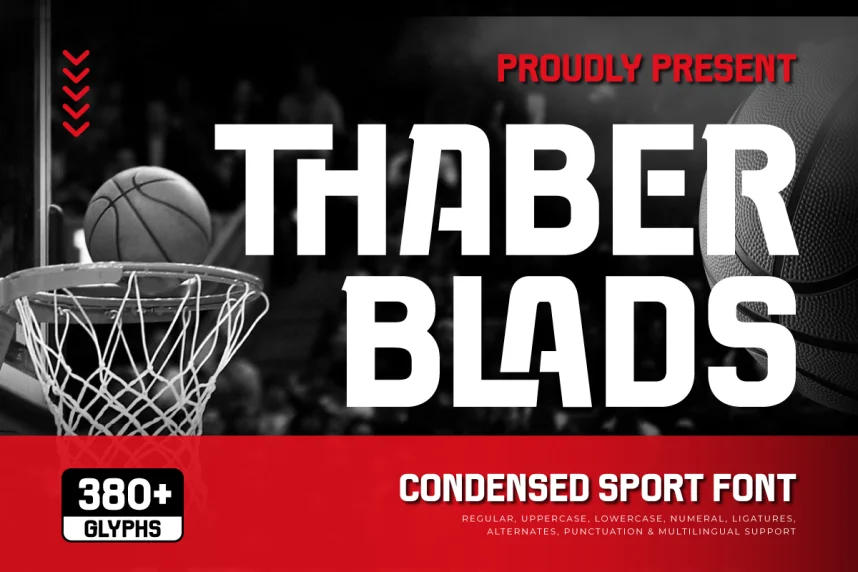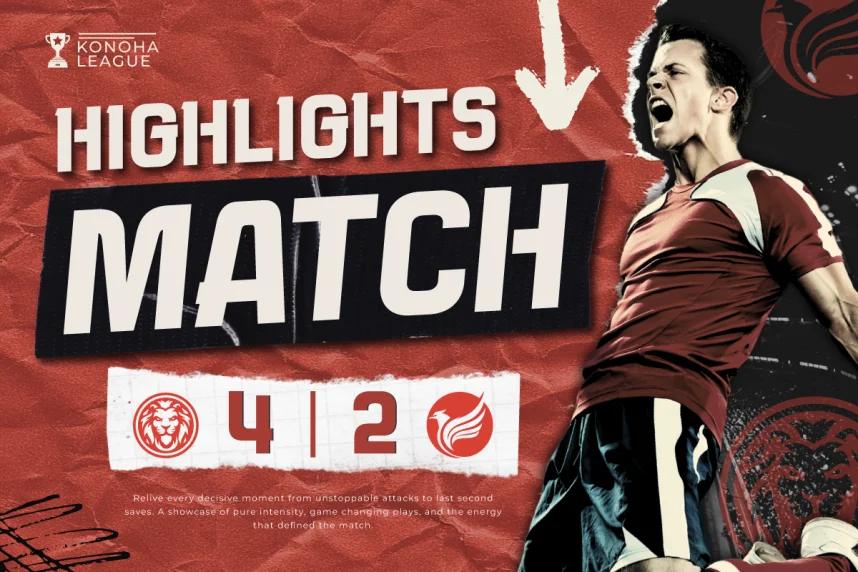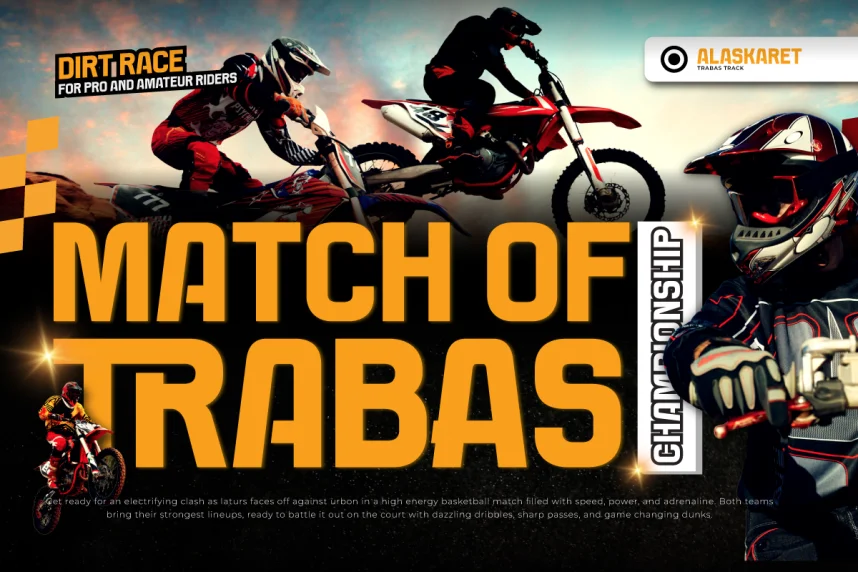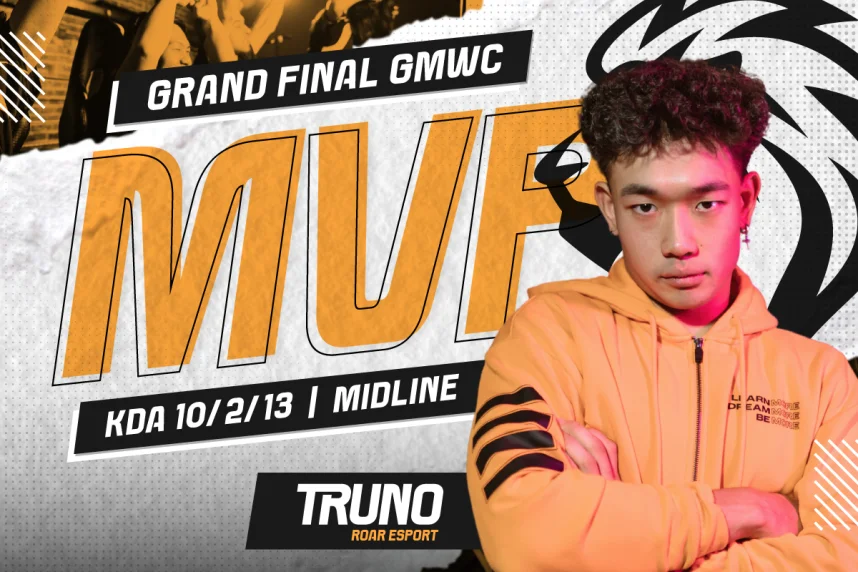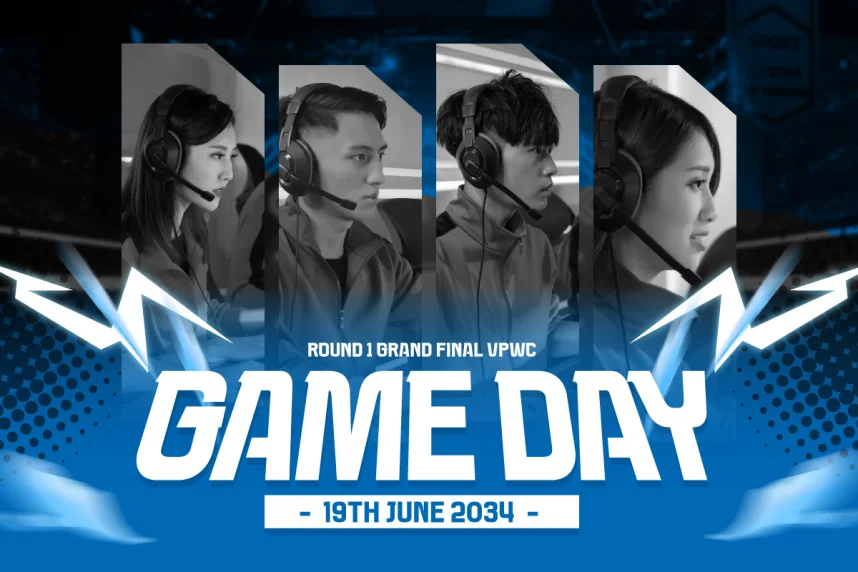
Thaber Blads Font is a display typeface designed to address impact and spacing challenges in logos, posters, and headline text. Designers often require sharp, structured letterforms that remain readable when scaled for branding and promotional graphics.
Thaber Blads uses bold strokes, angular cuts, and sharp terminals that create a strong visual presence. The letterforms are compact, with controlled spacing that supports short text and titles. The font is intended for display use rather than long reading and usually includes uppercase characters, numerals, and punctuation.